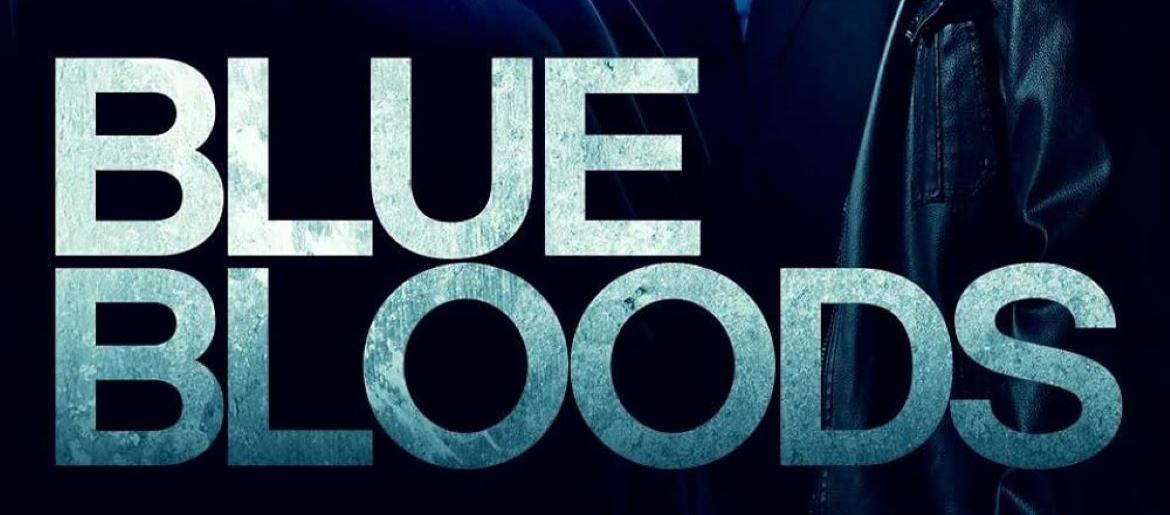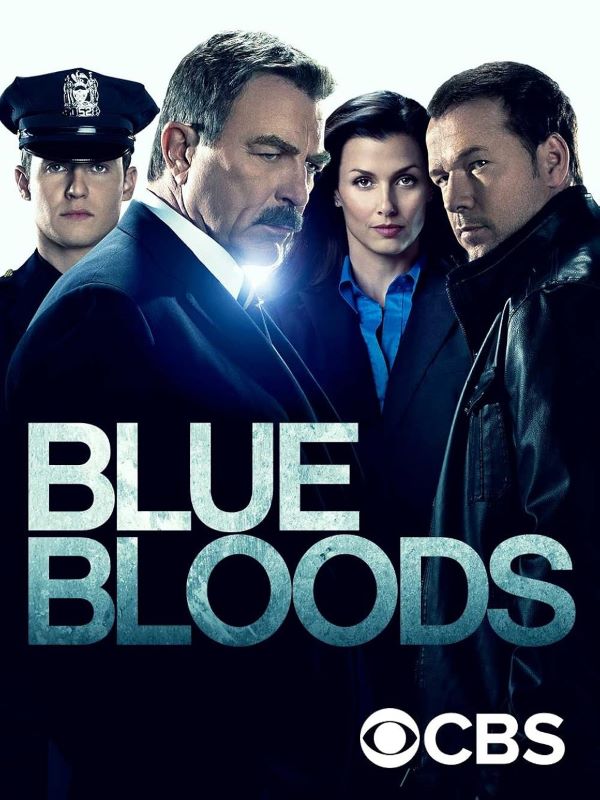
Blue Bloods Font
What Font is Blue Bloods?
Blue Bloods font utilizes the sophisticated Europa Grotesk SH Medium by Scangraphic Digital Type Collection, a premium font featuring clean, geometric sans-serif letterforms that convey authority and professionalism. While Europa Grotesk SH is premium, free alternative fonts like Work Sans Medium or Rubik Medium replicate its modern, sturdy aesthetic. The font’s bold yet balanced style perfectly reflects the show’s themes of law enforcement integrity, family loyalty, and New York City police tradition, embodying both institutional strength and human warmth.
About Blue Bloods
Blue Bloods is a police procedural drama series that premiered on CBS in 2010, created by Robin Green and Mitchell Burgess. Starring Tom Selleck, Donnie Wahlberg, Bridget Moynahan, and Will Estes, the show follows the multi-generational Reagan family of NYPD officers. Centered around weekly family dinners and complex cases, Blue Bloods explores moral dilemmas, police work, and family bonds across different ranks of New York’s law enforcement, becoming one of CBS’s longest-running dramas.